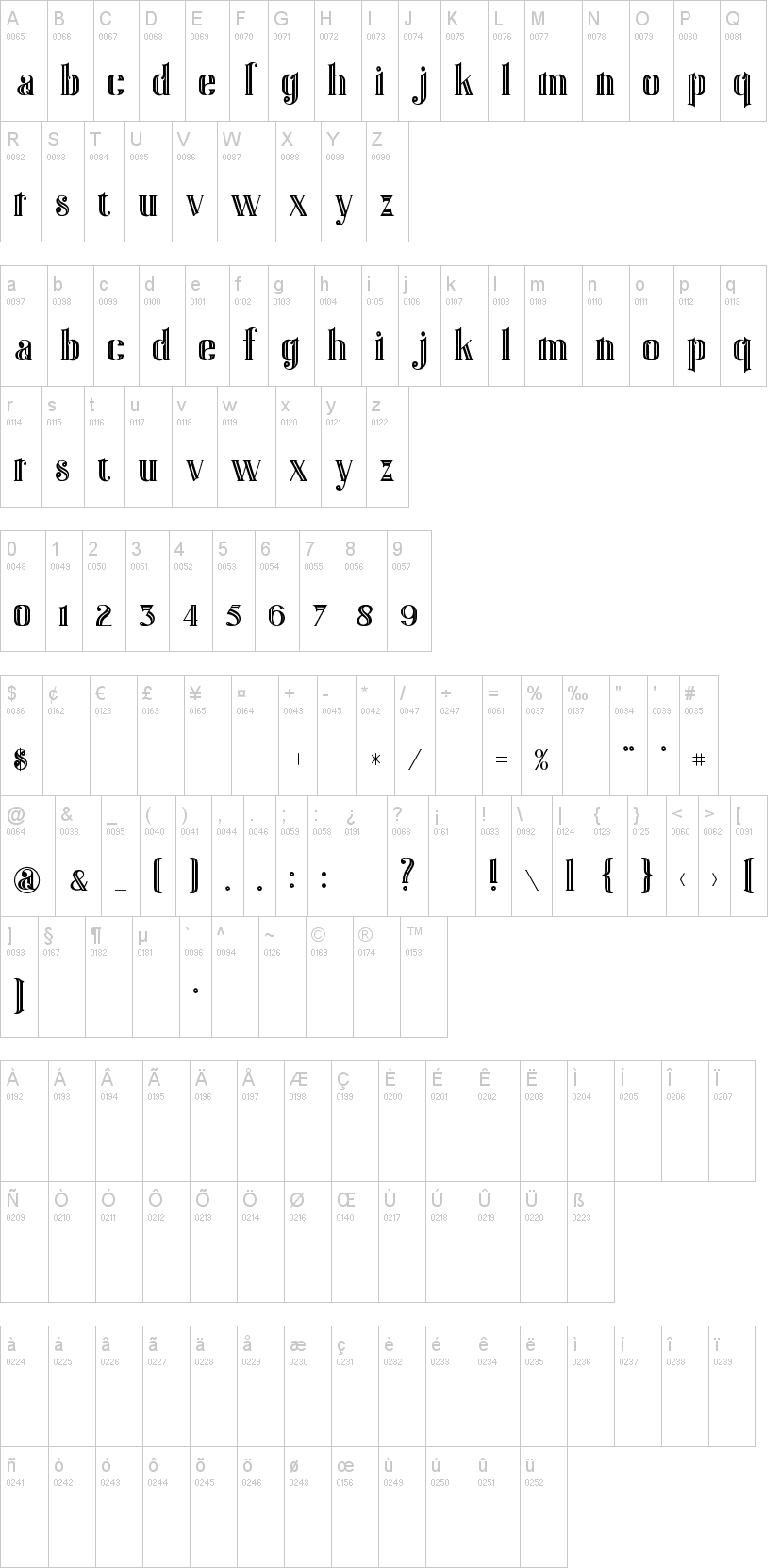
Great Gatsby Font Dafont
Great Gatsby Font Dafont. It is a free font. Click to find the best 7 free fonts in the the great gatsby style.
The Great Gatsby Is A 2013 Romantic Drama Film Based On F.
Truetype 230 glyphs 236 characters. To evoke the great gatsby feel, you can use the original font used for the 2013 film. I do know that matra and.
Rather than a roaring return of the opulence and extravagance of the 1920s, art deco has added a touch of old world charm to wedding invitations (think vintage. To evoke the great gatsby feel, you can use the original font used for the 2013 film. The font atlas is used in the great gatsby movie poster.
The ‘Gatsby Effect’ Has Made Itself Felt In Weddings Since The Release Of Baz Lurhmann’s Extravagant 2013 Remake Of F.